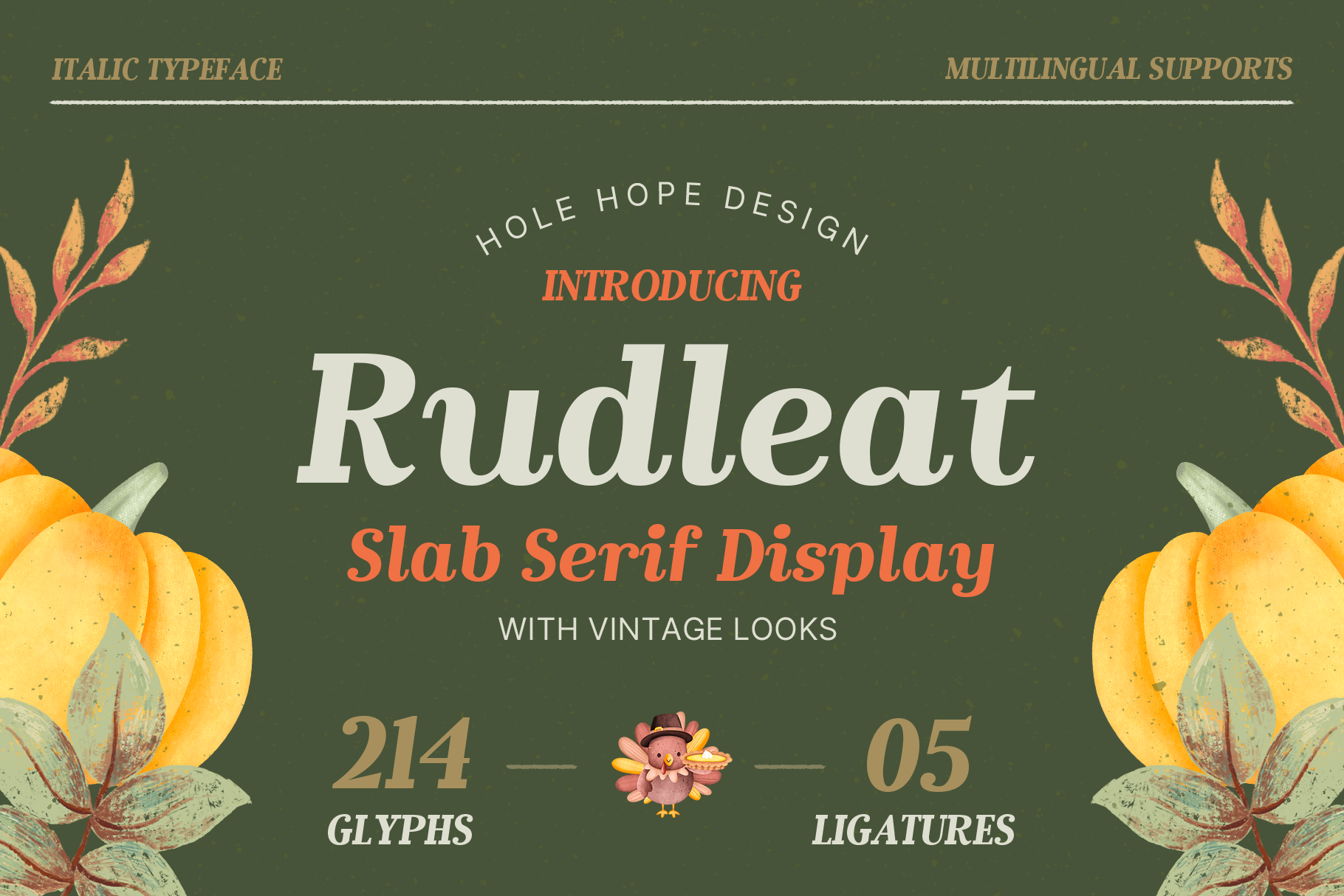
Rudleat | Slab Serif Display Font
Rudleat is a bold and robust font that captures the warmth and tradition of Thanksgiving. It’s strong slab serif and vintage-inspired design evoke a sense of nostalgia, perfect for seasonal projects that require a classic yet festive touch. The font’s sturdy letterforms make it ideal for headlines, invitations, or any thanksgiving-themed branding, ensuring your message stands out while embracing the holiday spirit. With its timeless appeal, Rudleat adds an extra layer of charm and sophistication to your thanksgiving designs.